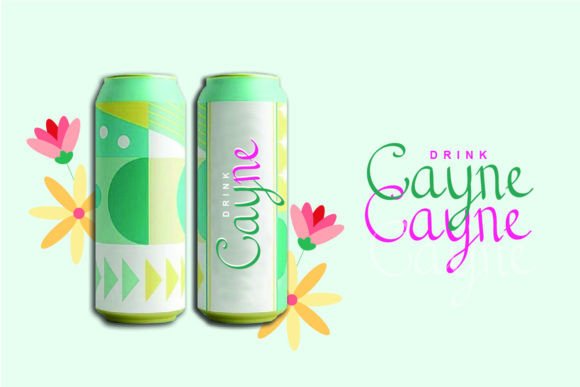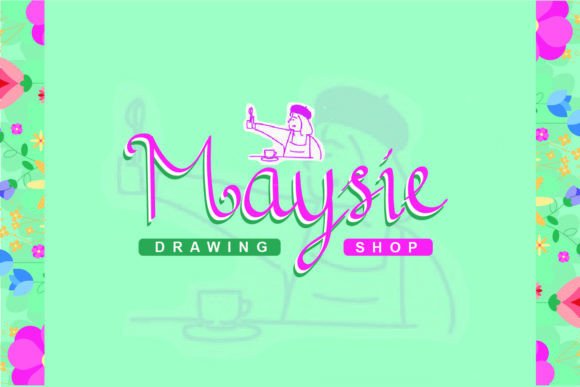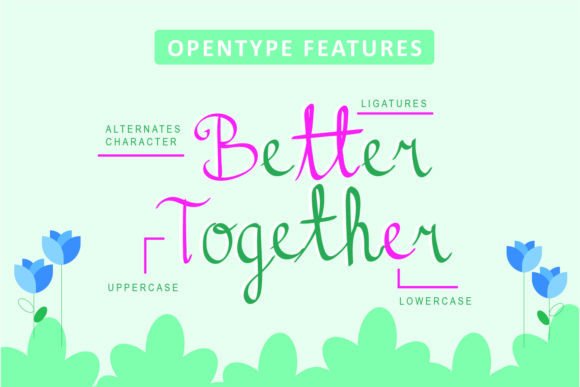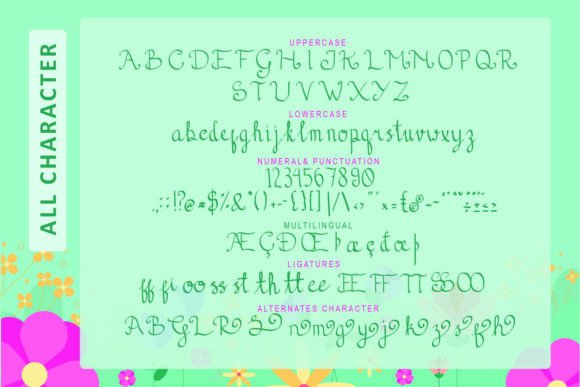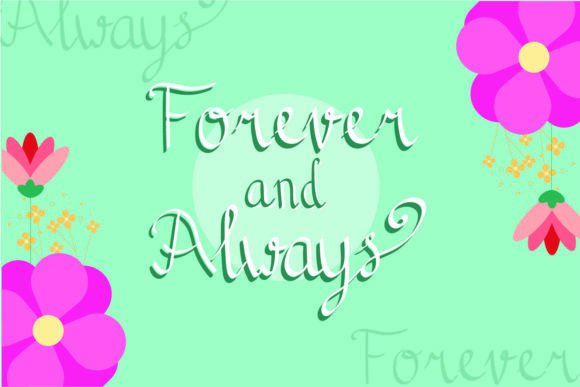
About Azucenna Font
“Azucenna” is a delightful and casually handwritten font that radiates a sense of fun and charm. This font brings a touch of beauty to a variety of designs that demand a personalized and unique style, including wedding invitations, thank you cards, greeting cards, logos, and more.
The appeal of “Azucenna” lies in its versatility and approachability. It adds a friendly and creative flair to your projects, making them stand out with a warm and inviting aesthetic. Whether you’re working on personal or professional designs, this font adds a personal touch that resonates with a wide range of audiences.
With “Azucenna,” you can infuse your designs with a sense of joy and creativity that captivates viewers. Its casual handwritten style imparts a genuine and down-to-earth quality to your projects, making them feel relatable and heartfelt.
As you incorporate “Azucenna” into your creative process, you’ll discover its remarkable ability to enhance your work, making it visually appealing and memorable. This font becomes a trusted companion in your design journey, allowing you to craft designs that convey a sense of warmth and authenticity, leaving a lasting impression on your audience.
In summary, “Azucenna” is a fun and casually handwritten font that brings a touch of charm to a variety of design projects. Its versatile style adds a personal and friendly quality that is well-suited for a wide range of applications. Let “Azucenna” be your creative tool and witness how it elevates your designs, ensuring they shine with joy and relatability while leaving a heartfelt impact.